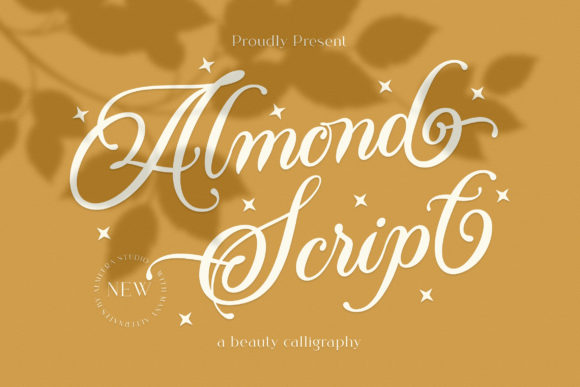
Introducing Almond Script Font, the epitome of elegance and grace in the world of script fonts. Crafted meticulously by the talented Almeera Studio, this font is a true masterpiece that will captivate your senses and elevate your designs to new heights.
With its thin lettered strokes and ravishing style, Almond Script Font is the perfect choice for those seeking a touch of sophistication in their projects. Whether you're designing wedding invitations, branding materials, or elegant stationery, this font will add a touch of class and charm that will leave a lasting impression.
But what sets Almond Script Font apart from the rest? Its unique feature lies in its single layer design, making it an ideal choice for Cricut users. Unlock your creative potential and effortlessly create stunning designs with this font, as it allows you to access all of the glyphs and swashes with ease, thanks to its PUA encoding.
Imagine the possibilities that await you with Almond Script Font. Create personalized monograms, exquisite logos, or breathtaking quotes that will leave your audience in awe. Its versatility knows no bounds, allowing you to experiment and bring your wildest design dreams to life.
This font is not just a tool; it's an experience. Feel the rush of inspiration as you embark on a creative journey with Almond Script Font. Let its graceful curves and delicate lines guide your hand and bring your visions to reality. Immerse yourself in the world of exquisite typography and watch as your designs take on a new dimension of beauty.
Don't settle for mediocrity. Choose Almond Script Font and let your designs speak volumes about your impeccable taste and style. Stand out from the crowd and leave a lasting impression on your audience. Whether you're a seasoned designer or just starting your creative journey, this font is the perfect companion to showcase your talent and creativity.